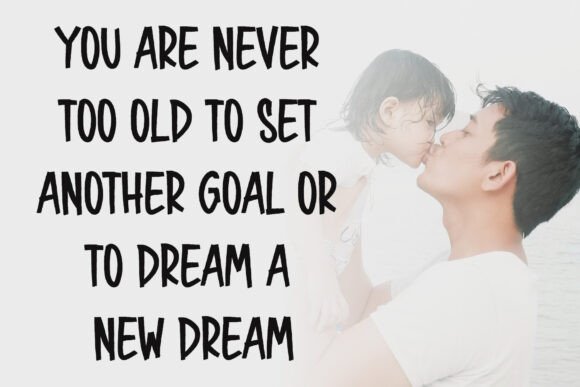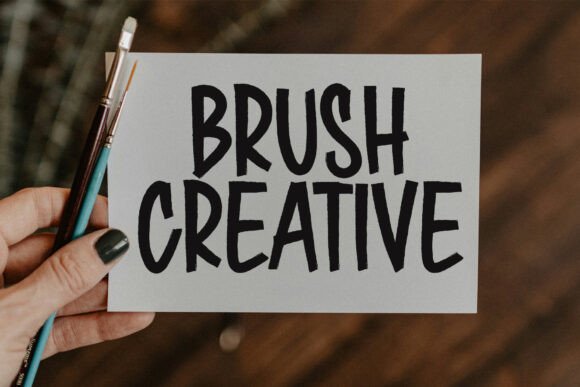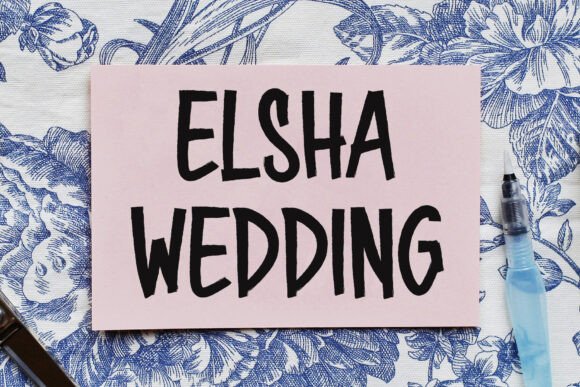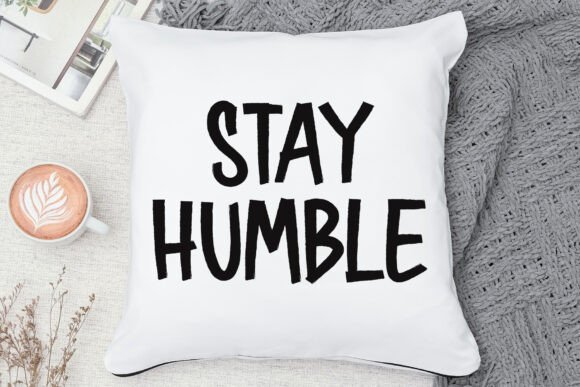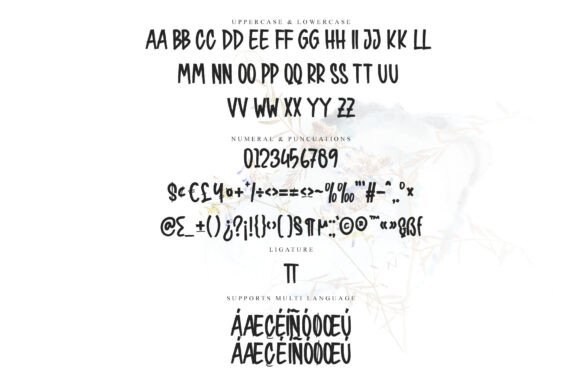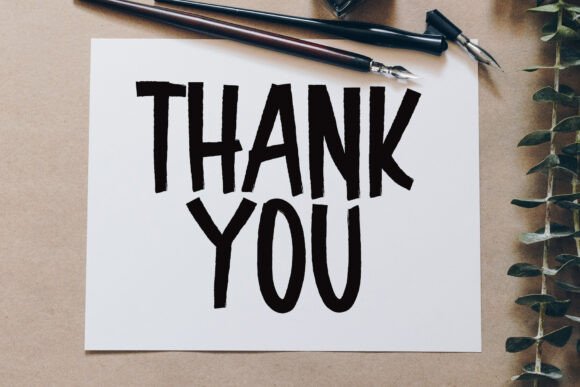
The Beloved Signature Font That’s Stealing Hearts: A Deep Dive into Simple Tumbler’s Charm
I’ll never forget the time I was working on a children’s book project, and my client asked me to create a custom font that would make the story come alive. I spent hours scouring the internet for the perfect font, but nothing seemed quite right. That was until I stumbled upon Beloved Signature, a modern and friendly sans-serif font that’s been making waves in the design community. In this article, I’ll share my love for this delightful font, its features, and how to make the most of it in your designs.
A Personal Love Affair with Beloved Signature
Beloved Signature, also known as Simple Tumbler, is a sweet and charming font that radiates warmth and playfulness. Its rounded edges and playful curves make it perfect for designs that need a touch of whimsy. I’ve used it for children’s books, invitations, and branding projects, and it never fails to capture attention with its inviting personality.
• ✨ Playful and friendly vibe: Beloved Signature has a unique ability to make your designs feel approachable and fun.
• ✅ High legibility: The font’s clear and simple structure makes it easy to read, even at small sizes.
• 🌈 Versatility: It works beautifully for both digital and print projects, from children’s books to branding and advertising.
While Beloved Signature is an amazing font, it’s not perfect. Here are a few things to keep in mind:
• 🤔 Limited serif options: As a sans-serif font, it might not be the best choice for projects that require a more traditional or formal look.
• ⚠️ Glyph limitations: While the font has a range of OpenType features, it might not have all the glyphs you need for a specific project.
The Story Behind Beloved Signature
Beloved Signature was designed with the intention of creating a font that’s both modern and friendly. The designer aimed to craft a font that would bring a sense of warmth and playfulness to any design. While the exact story behind the font is unclear, it’s evident that the designer succeeded in creating a font that’s both charming and versatile.
Q: What type of projects is Beloved Signature best suited for?
A: Beloved Signature is perfect for children’s books, invitations, branding, and any project that requires a playful, friendly vibe.
Q: Does Beloved Signature have OpenType features?
A: Yes, Beloved Signature has a range of OpenType features, including stylistic alternates and glyphs.